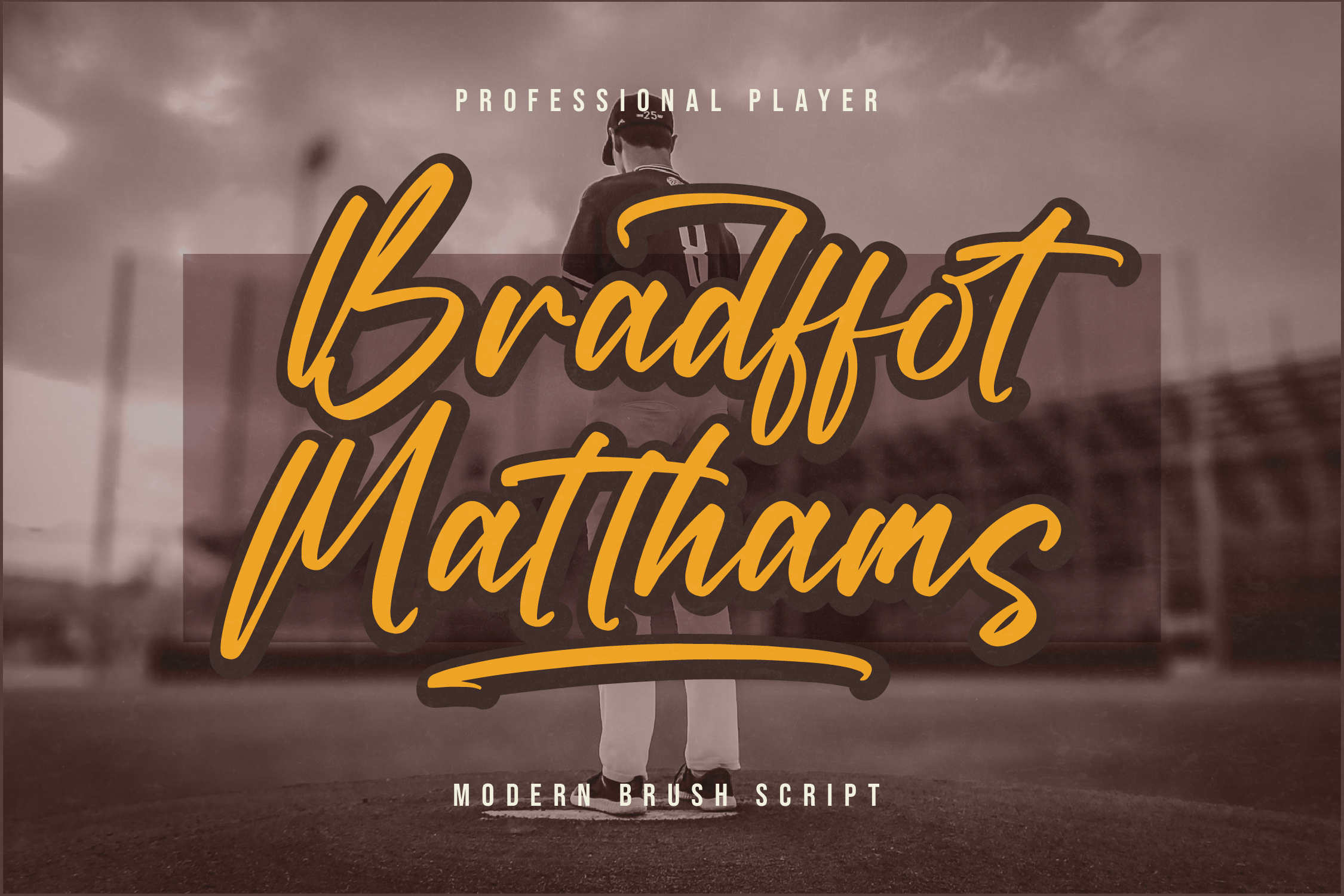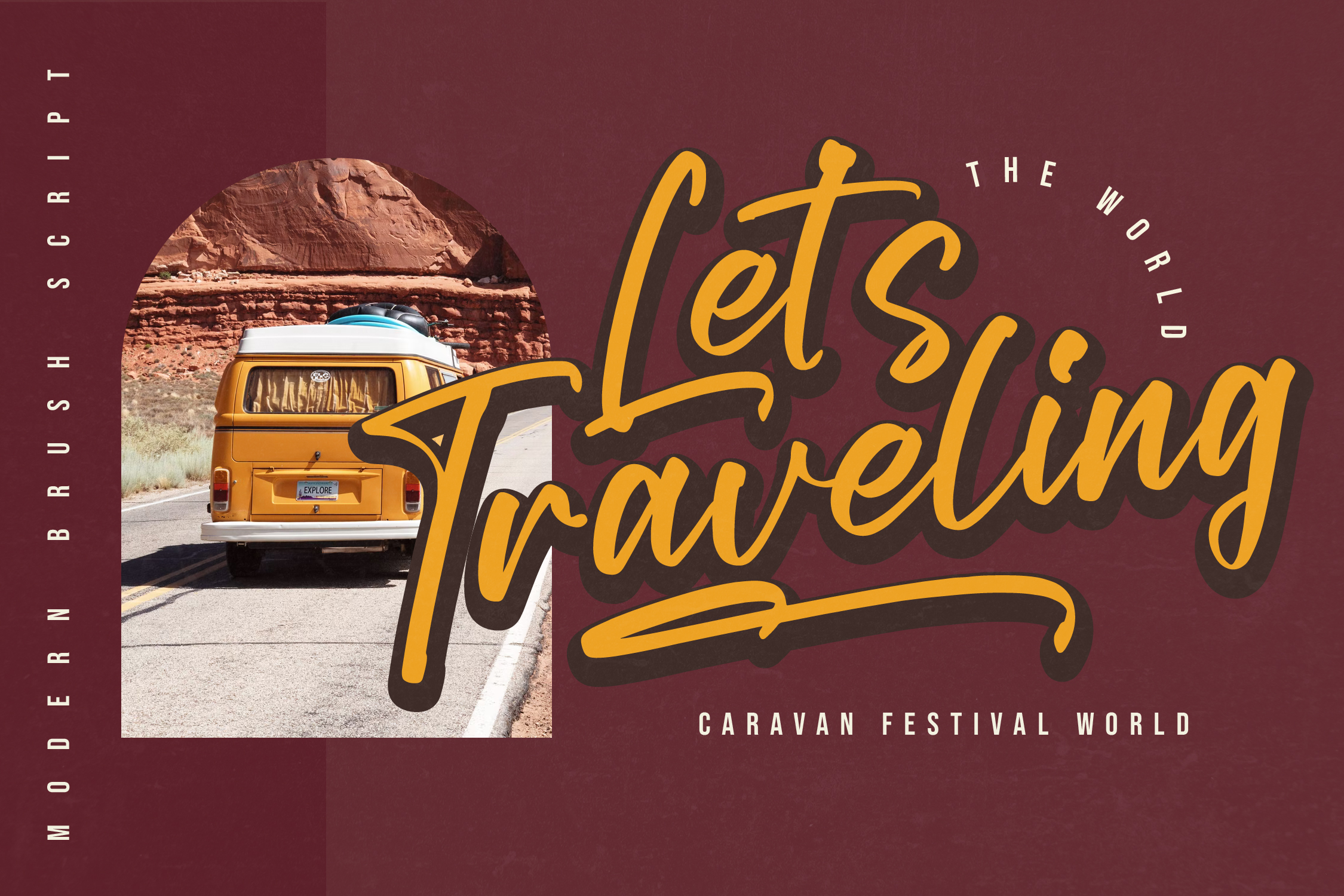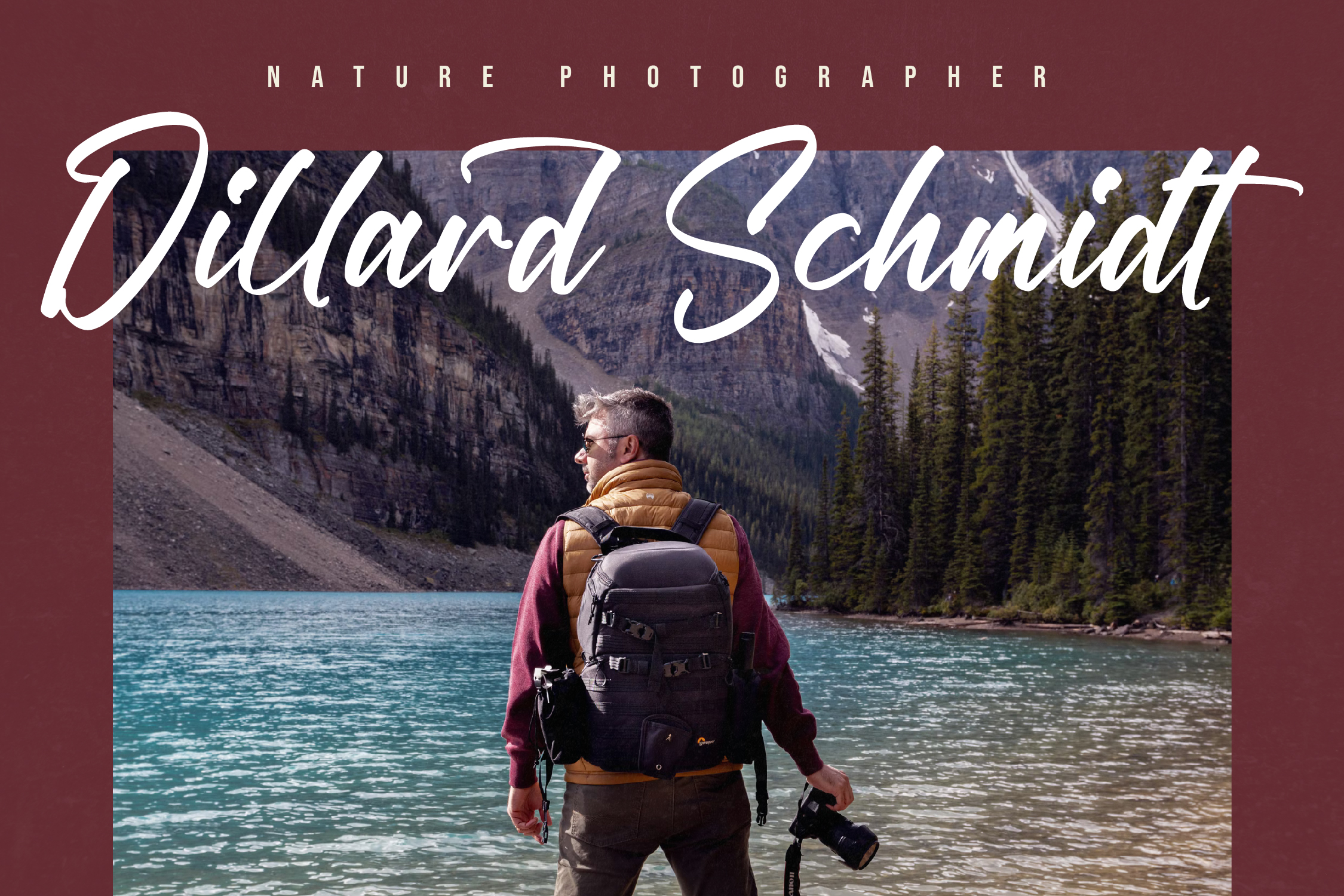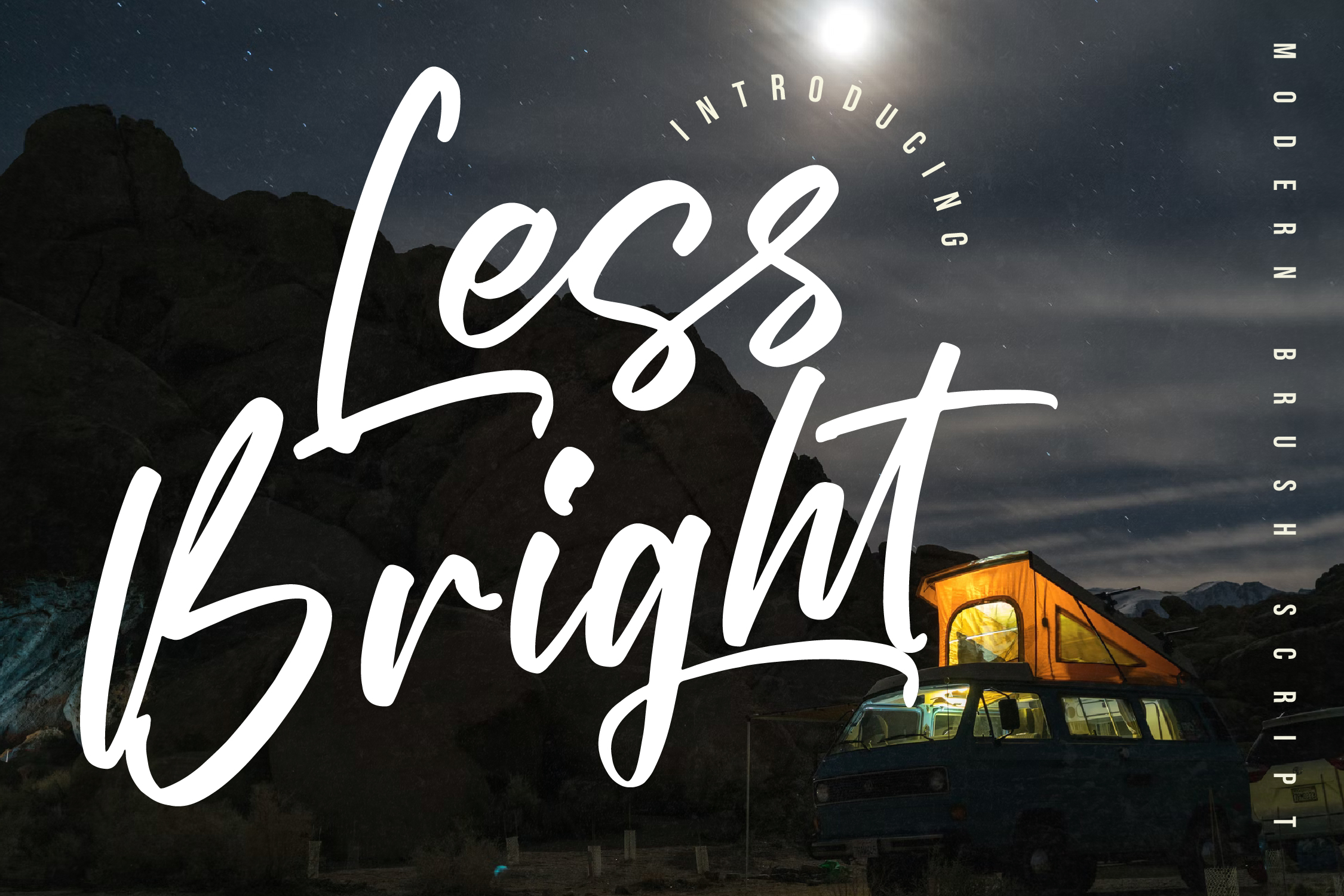
Less Bright Font
Less Bright Brush Font
This is a modern brush font, suitable for any projects such as: logos, branding projects, homeware designs, product packaging, mugs, quotes, posters, shopping bags, t-shirts, book covers, name card, invitation cards, greeting cards, label, photography, watermark, special events, and all your other lovely projects that need a beautiful script taste.